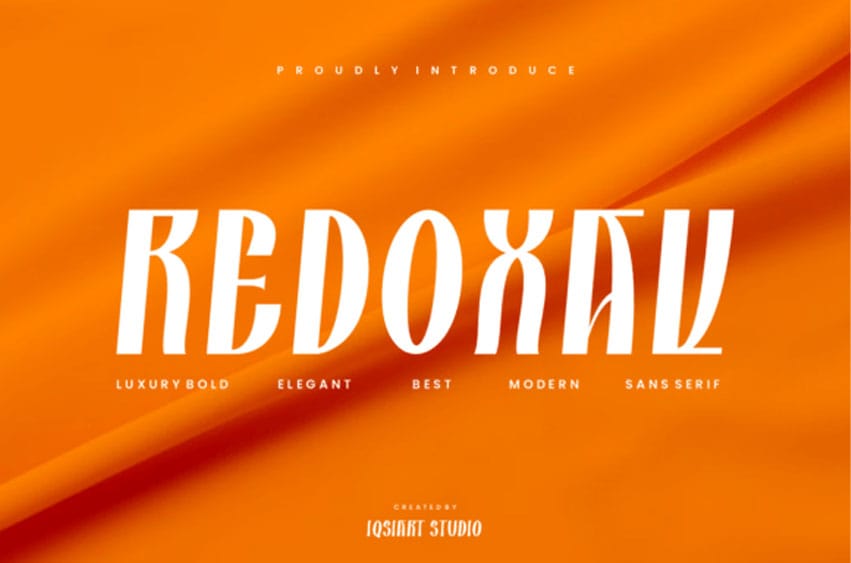
Redoxav Font is a unique display font that exudes creativity and bold innovation. Featuring distinctive letterforms, sharp angles, and unconventional shapes, it captures a modern and edgy aesthetic.
Ideal for branding, posters, logos, and headlines, it adds an artistic and memorable touch to any design. With its standout style and dynamic presence, this font delivers both originality and visual impact.